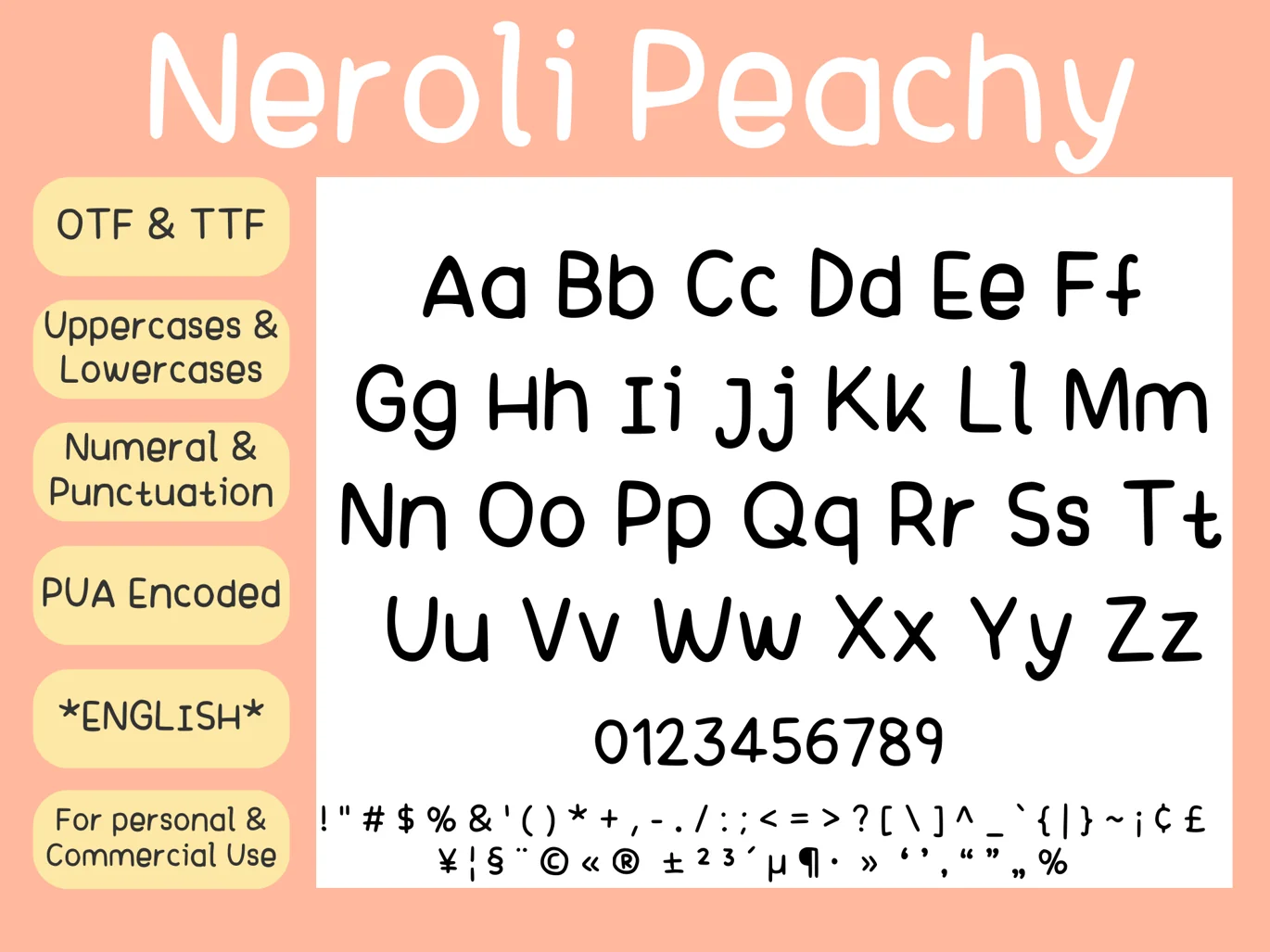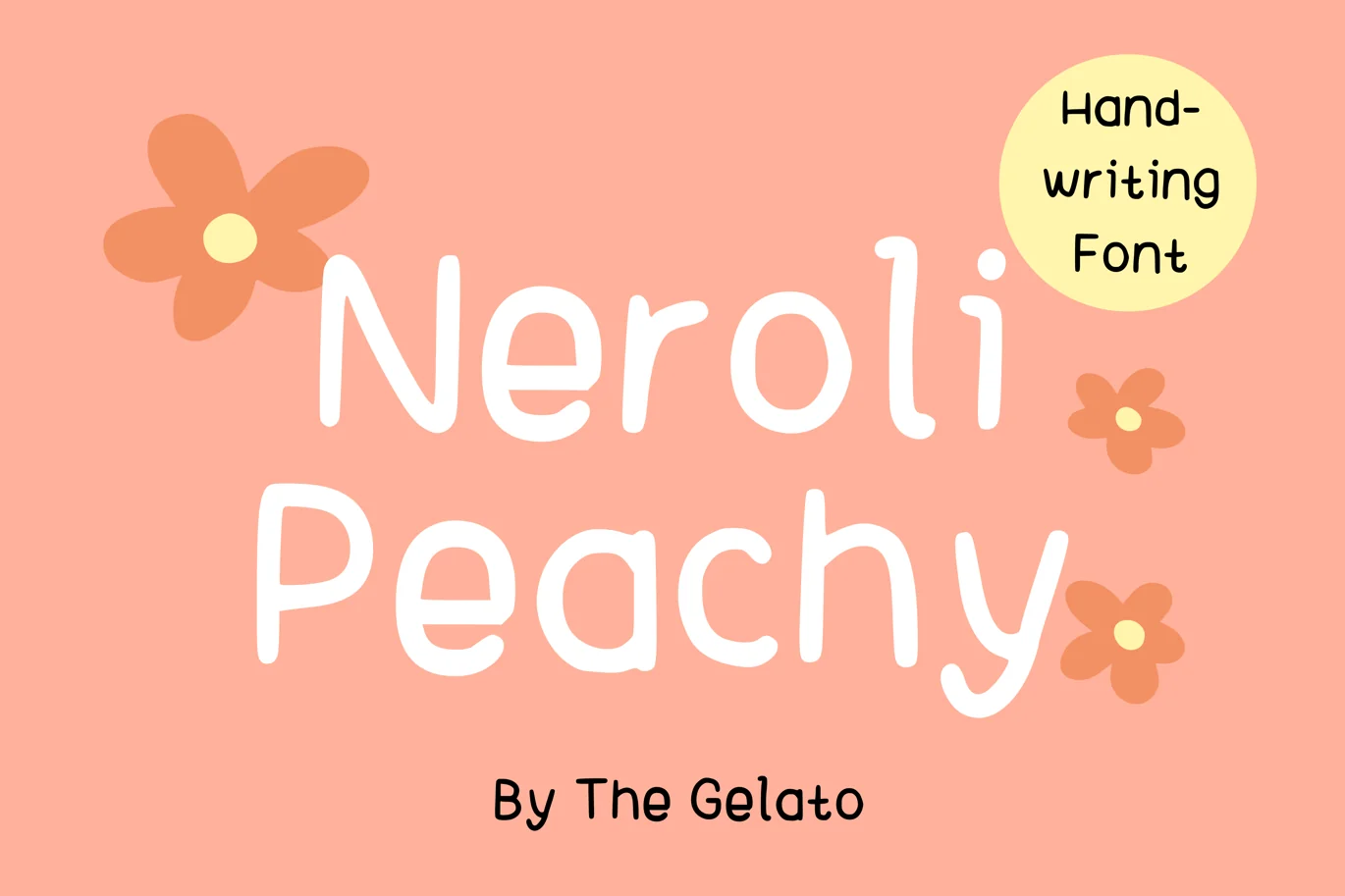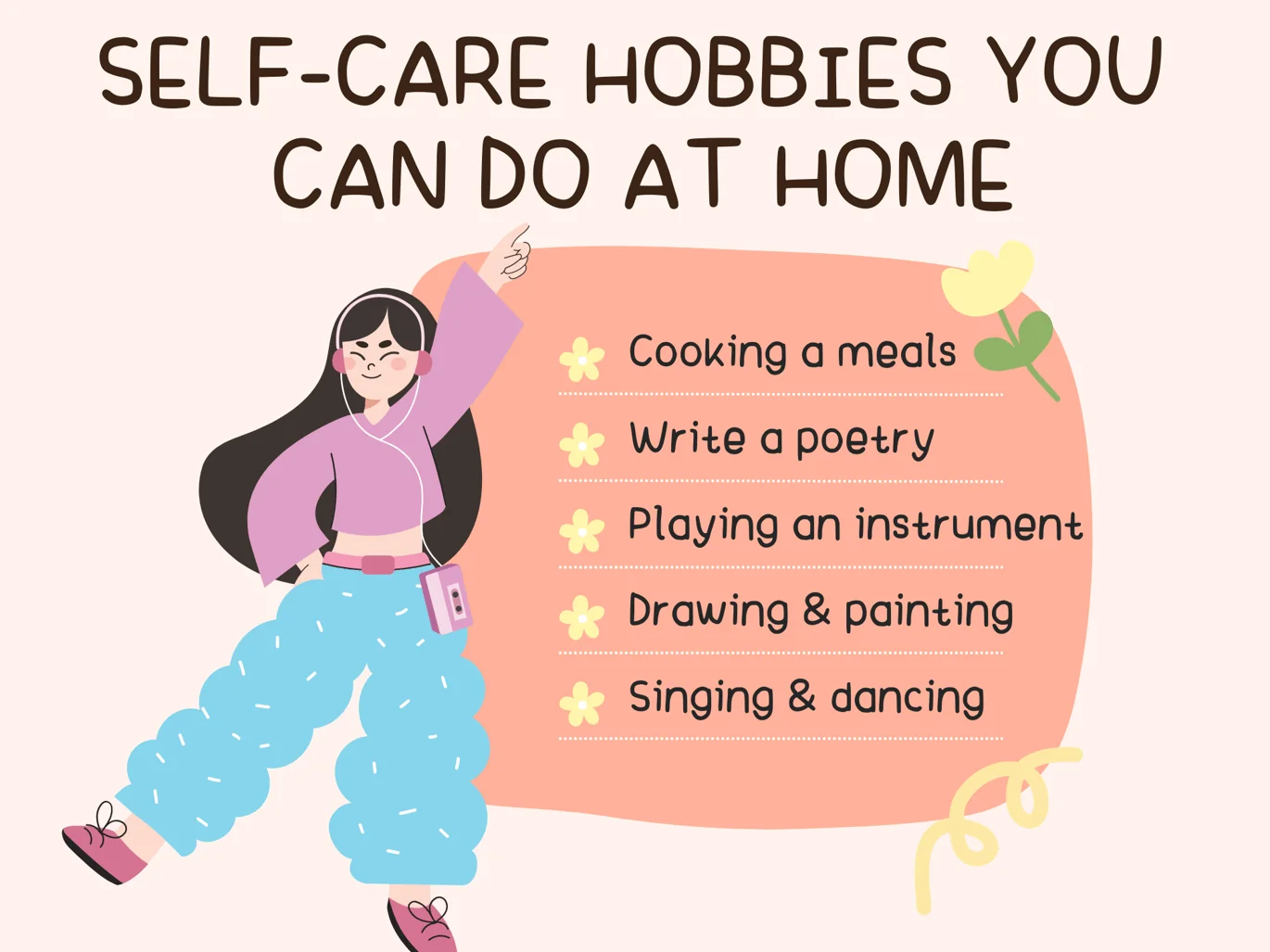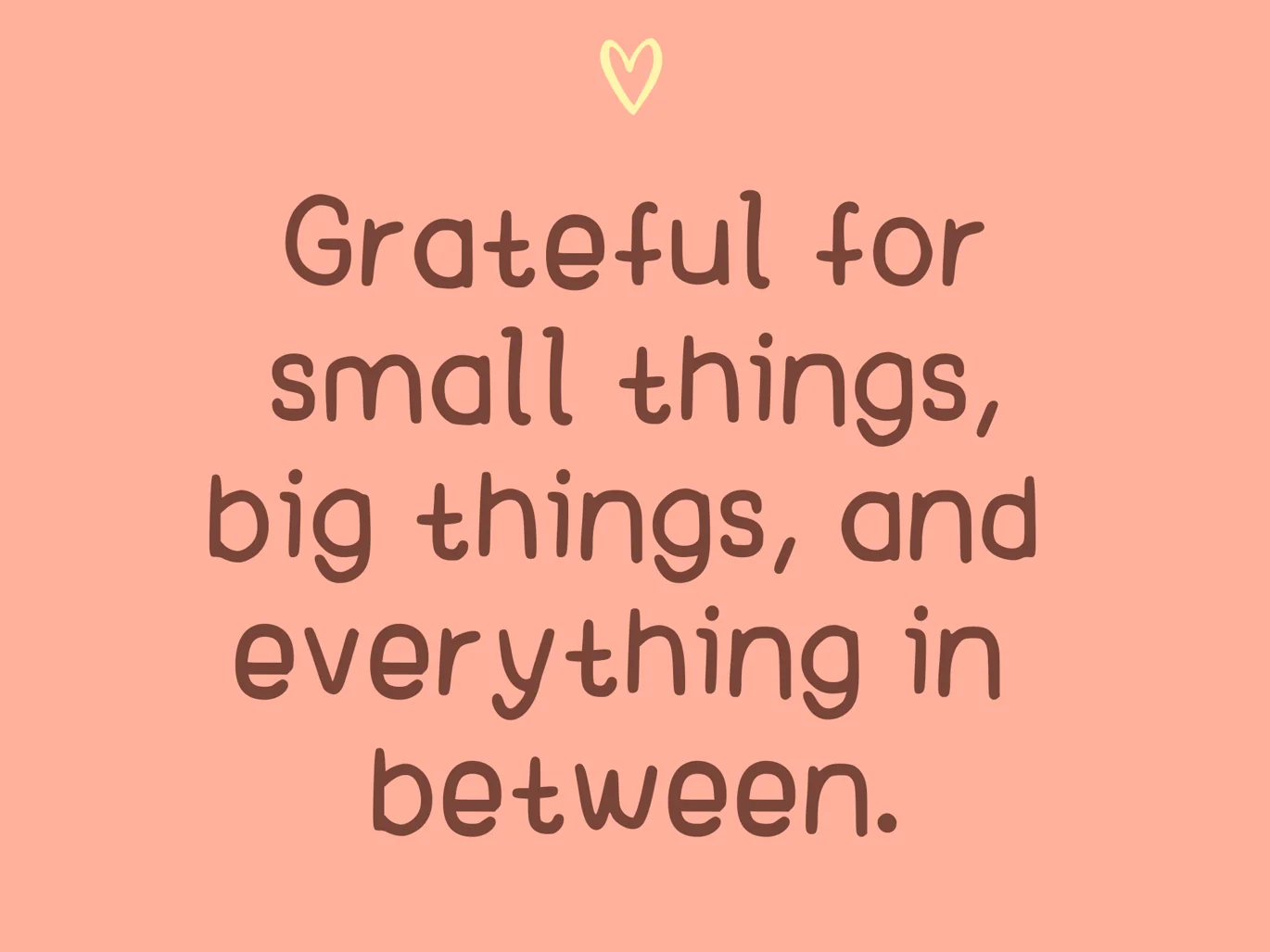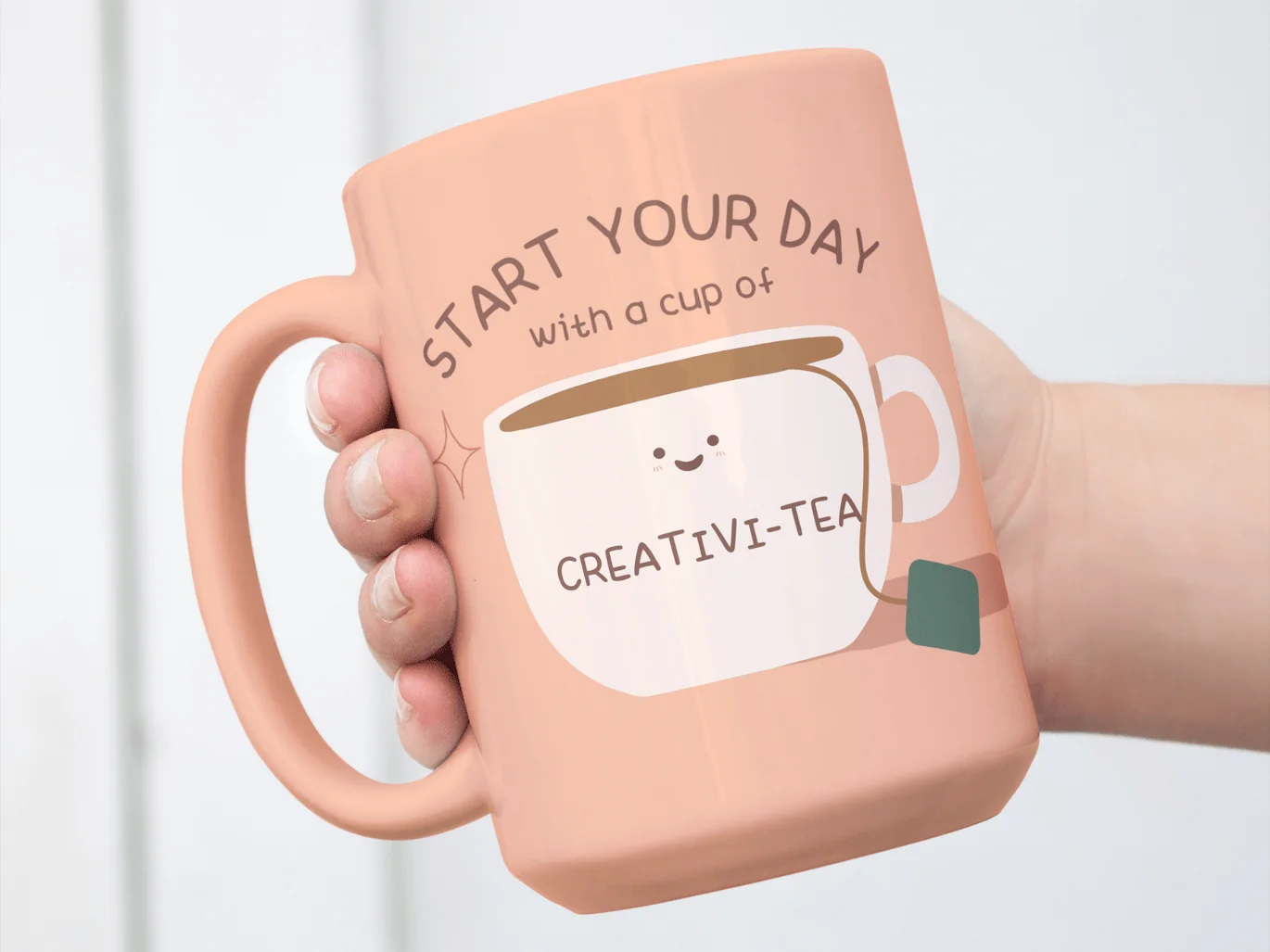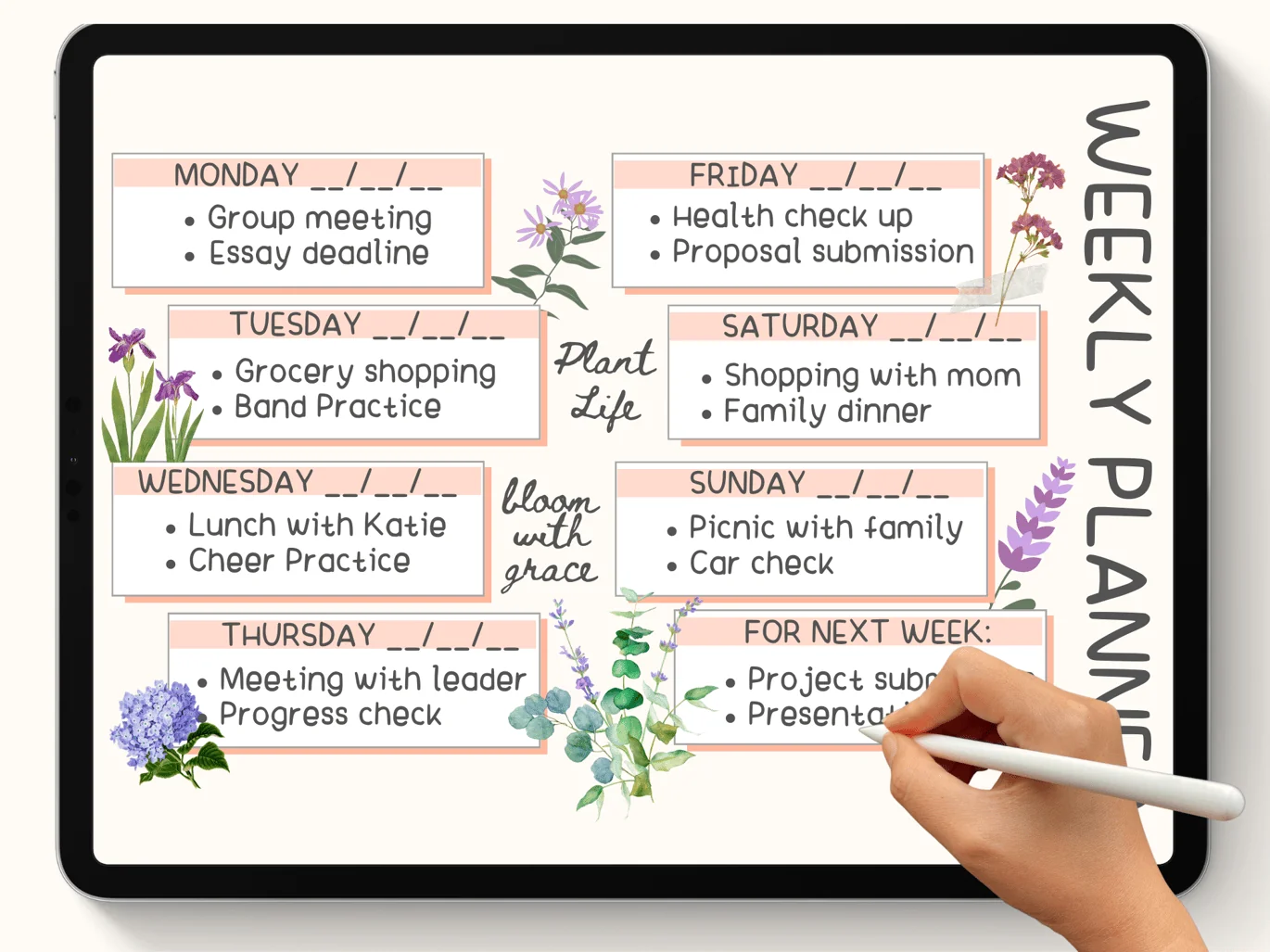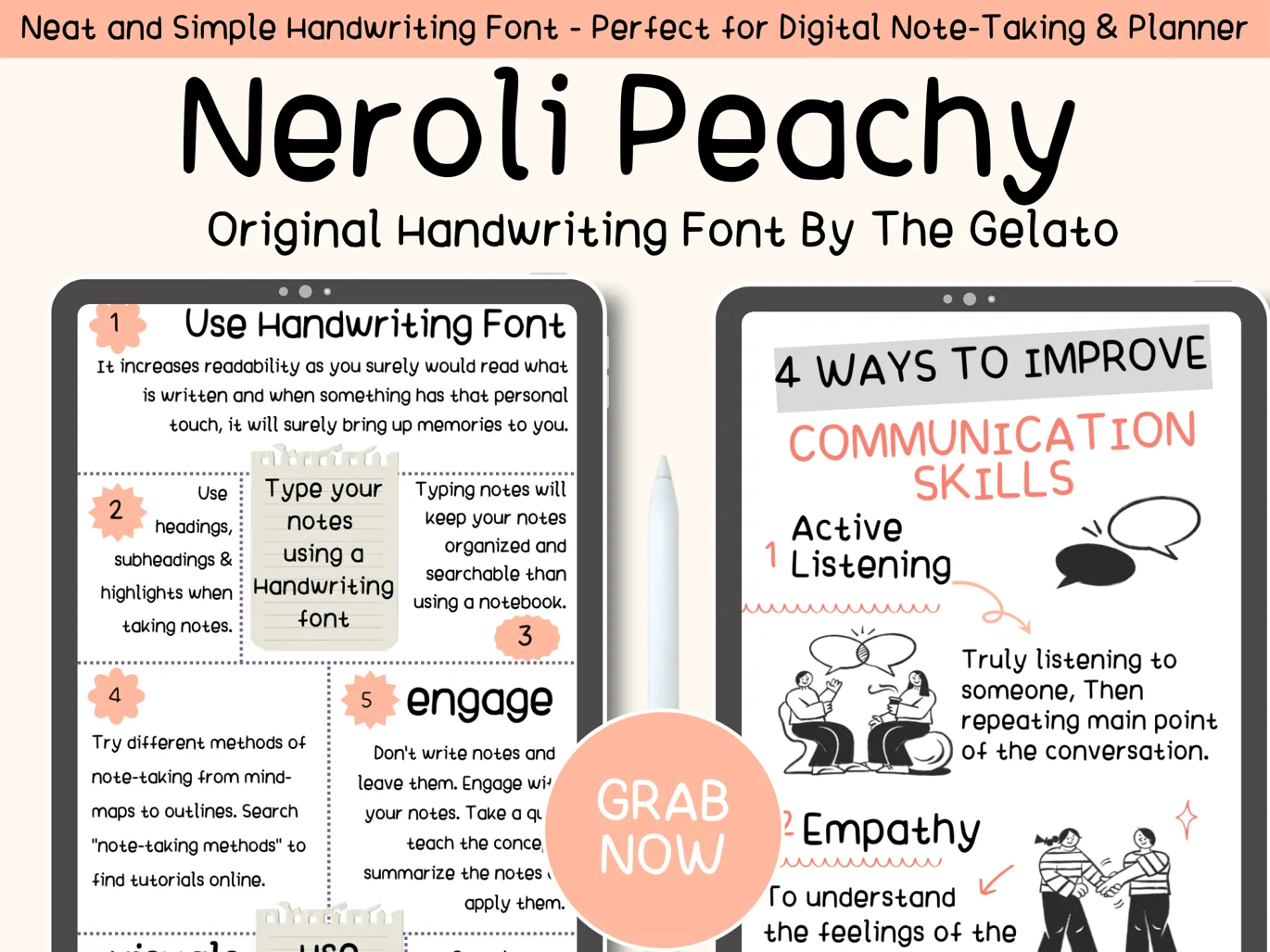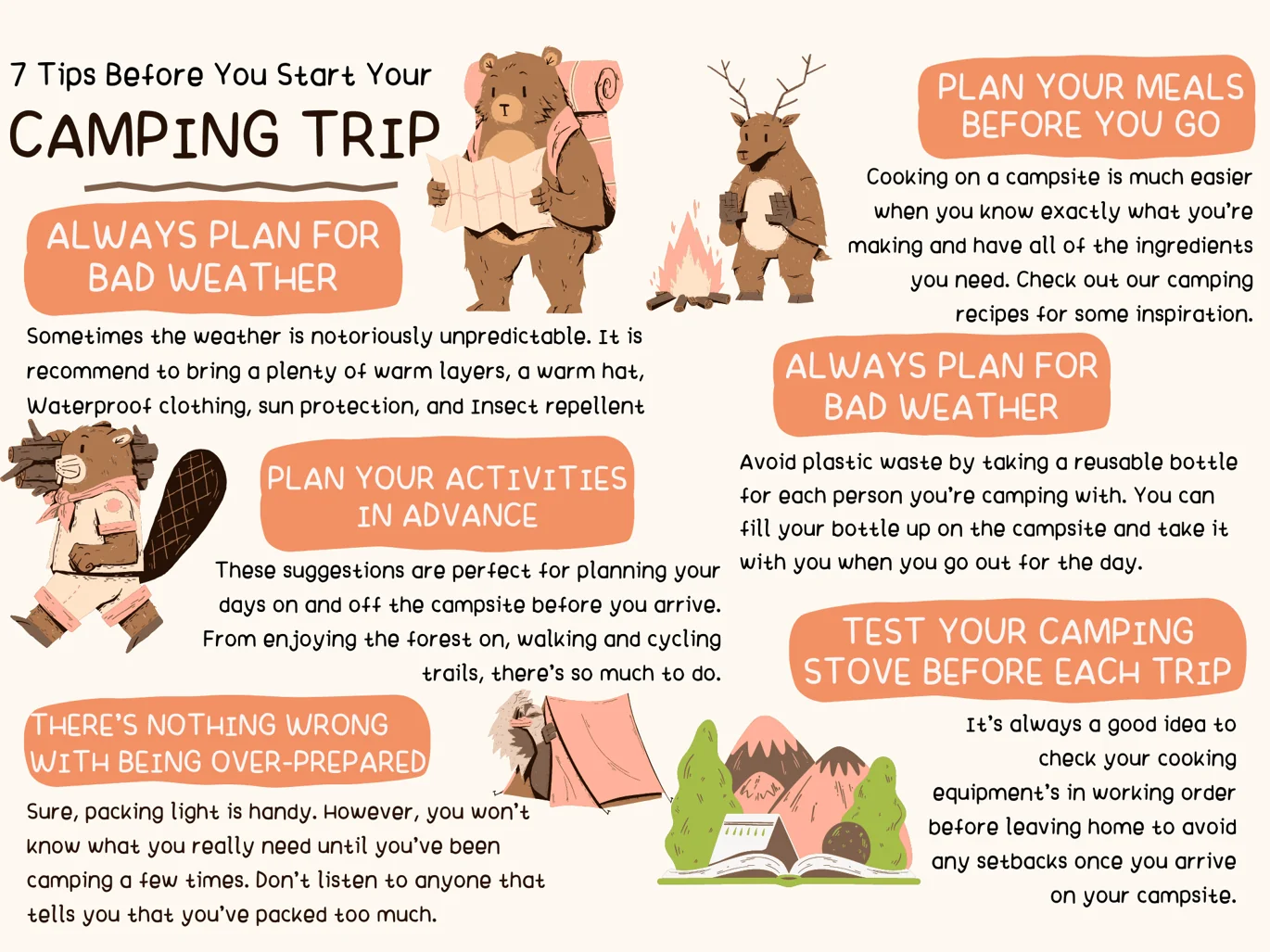
Neroli Peachy Handwritten Summer Font
Neroli Peachy Font is a very neat handwritten font that can be used as Handwriting Cute Font, iPad Handwritten Font, Minimal Handwriting Font, Simple Handwriting Font, Note Font, Journaling Font, Farmhouse Font, Monoline Lettering Font, Text Font, quote Font
Perfectly suitable for numerous use such as quotations, banners, logos, product packaging, titles, headers, menu lists and even for digital note taking! Also, can work well on iPad planners, digital planners, GoodNotes templates, and other digital notes and journals.